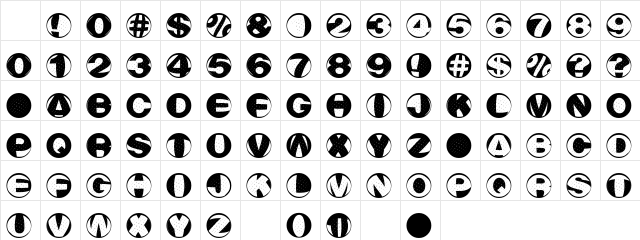
Complete RainyNight Medium glyph index. Displaying only characters natively supported by RainyNight Medium font.
RainyNight is a composed and adaptable typeface that performs quietly and consistently across a wide range of design contexts.